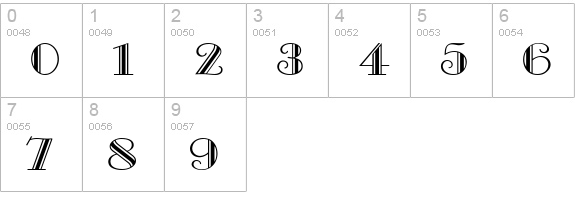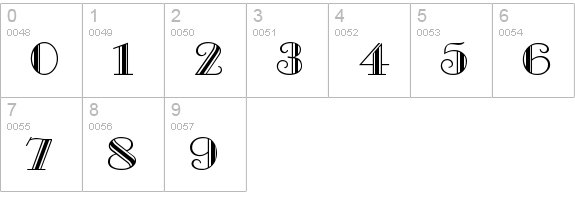
Galleria Font Details
Galleria font is a stunningly beautiful typeface that exudes elegance and sophistication. With its graceful curves and intricate details, this font is sure to captivate anyone who lays eyes on it. Designed with the utmost care and attention to detail, Galleria font is perfect for adding a touch of class to any project. What makes Galleria font even more impressive is that it is completely free. Yes, you read that right - this magnificent font is freely available to download at FontsMarket.com. Whether you are a professional designer looking to enhance your creations or an enthusiast wanting to experiment with new fonts, Galleria font is the perfect choice. With its wide range of letters, numbers, and symbols, Galleria font offers endless possibilities for creativity. Whether you are designing a logo, creating a wedding invitation, or crafting a poster, this font will effortlessly elevate your design to new heights. Not only does Galleria font excel in its aesthetics, but it also delivers in terms of functionality. Its legibility and clarity make it easy to read in both large and small sizes. The smooth curves and consistent spacing ensure a seamless reading experience, making Galleria font a reliable choice for any project. Download Galleria font today from FontsMarket.com and unlock a world of design possibilities. Let this exquisite font be the centerpiece of your next creative endeavor, and watch as it adds a touch of elegance and sophistication to your work. Give your designs the attention they deserve with Galleria font - the perfect blend of beauty and functionality, now available to you for free.